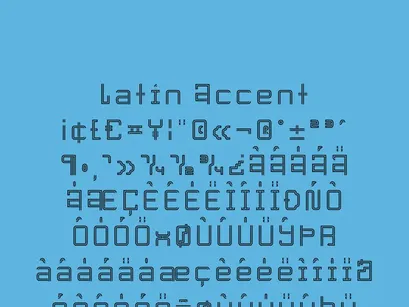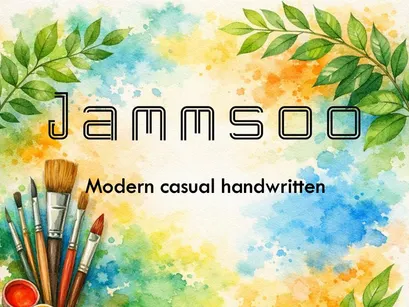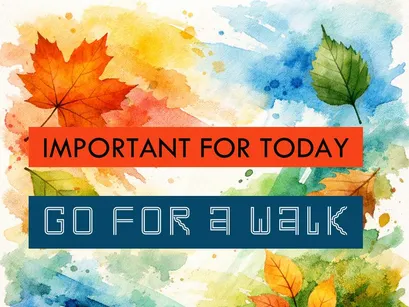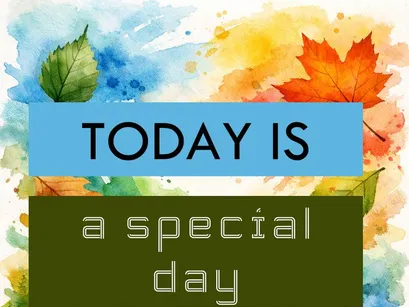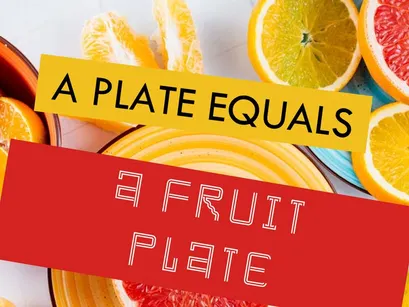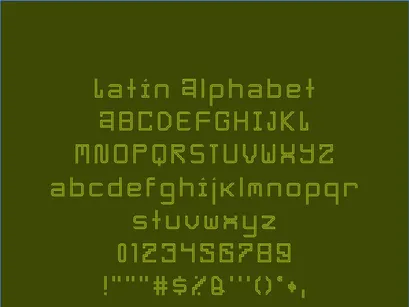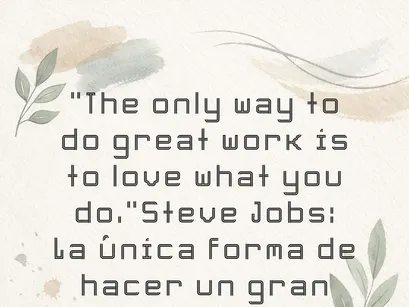
Jammsoo is a modern, casual, handwritten typeface featuring a handcrafted structure and clean lines that convey energy and clarity.
Designed for motivational quotes, covers, planners, and emotional branding, it blends a modern style with the charm of a hand-drawn stroke.
Its geometric and legible design makes it perfect for digital or print projects seeking a creative, balanced aesthetic.
Includes a full Latin alphabet and accents; compatible with English and Spanish.